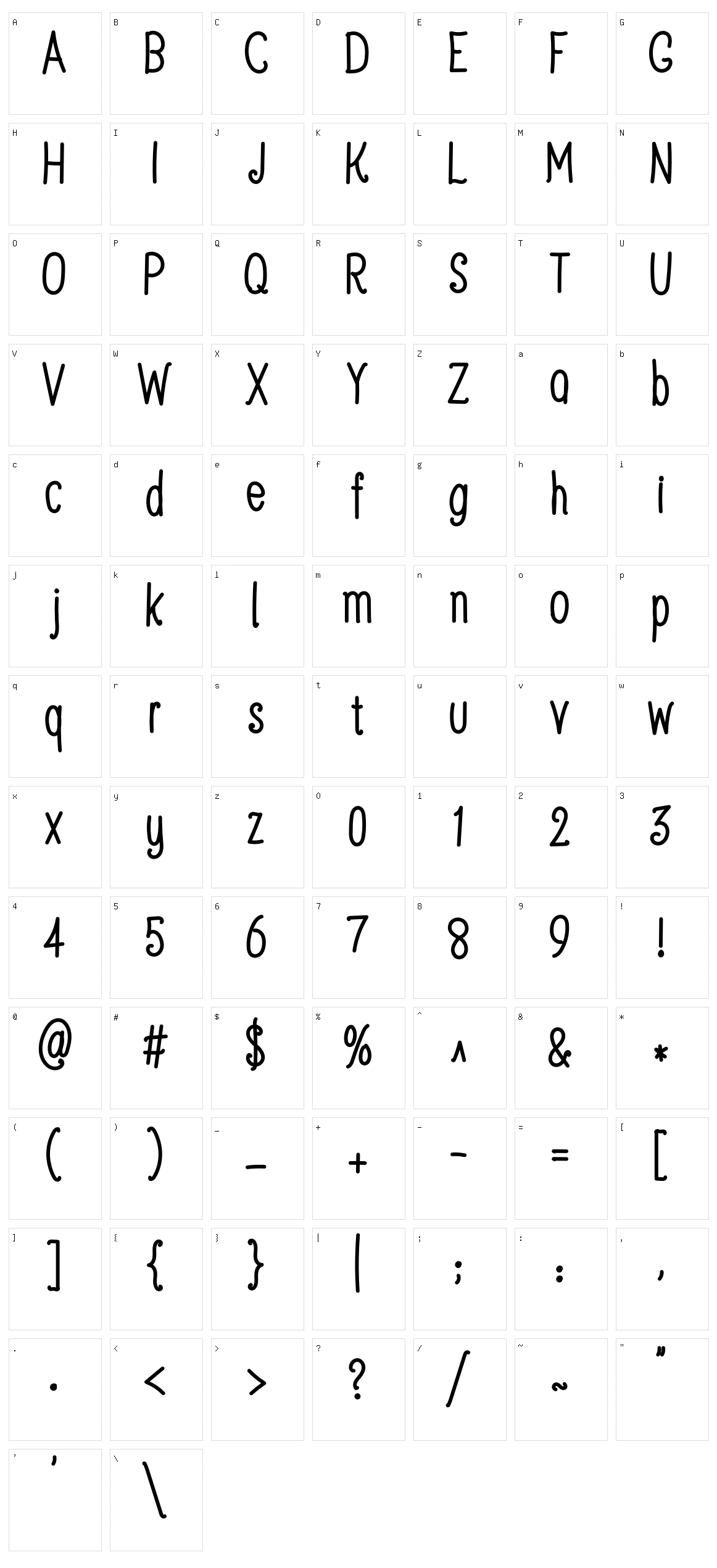
The free font Jelly Sprite Club is carefully designed by Navid Torabpourshiraz, showcasing a thoughtful balance of creativity and usability and falls under the Script font style. When you download the ZIP file, it contains only 50 KB of font files, making it lightweight and quick to download. Please review the license details below to understand permitted usage and distribution rights. If license information is not available, we recommend using this font for personal projects only or contacting the author directly for commercial usage permissions.